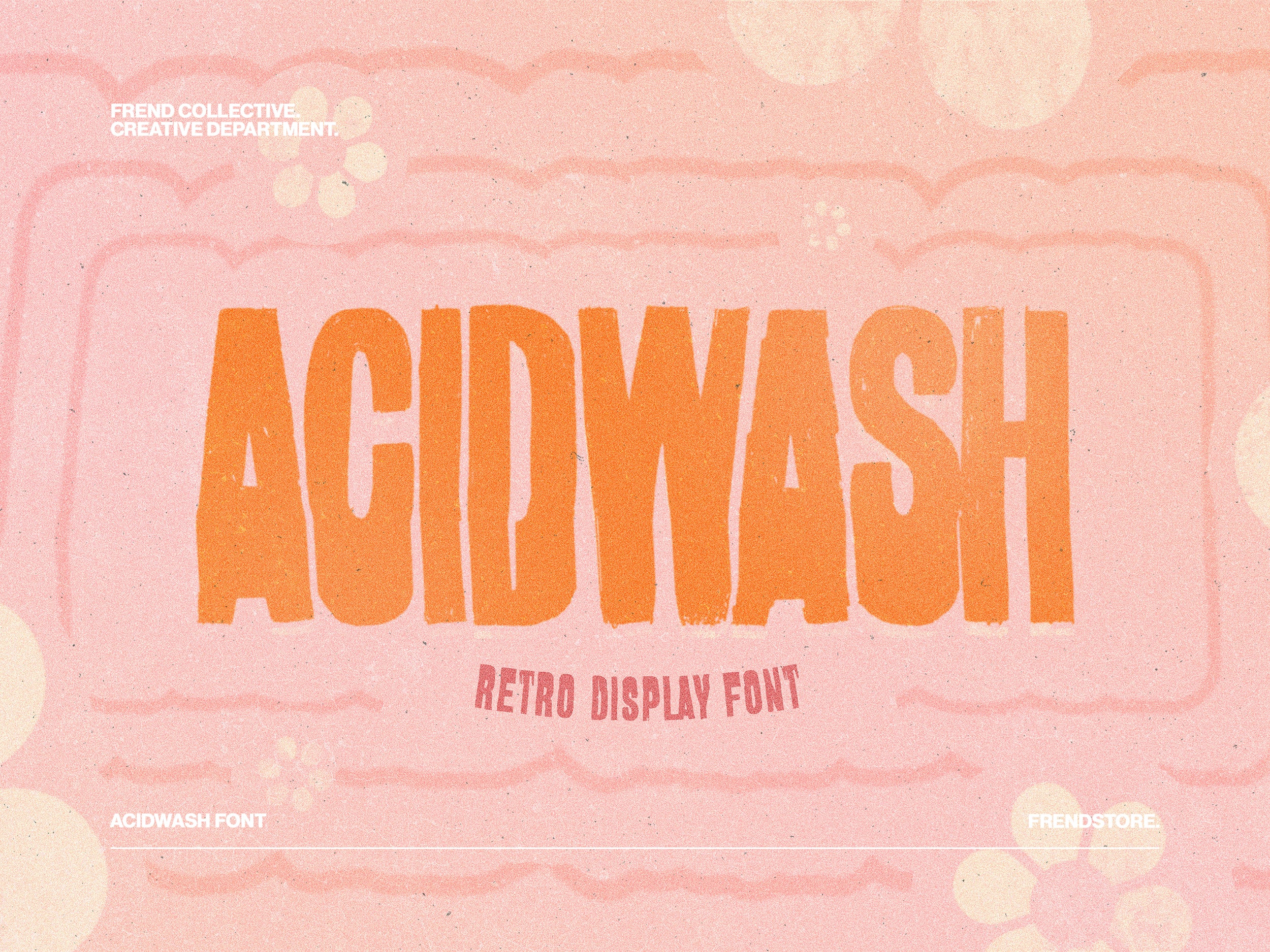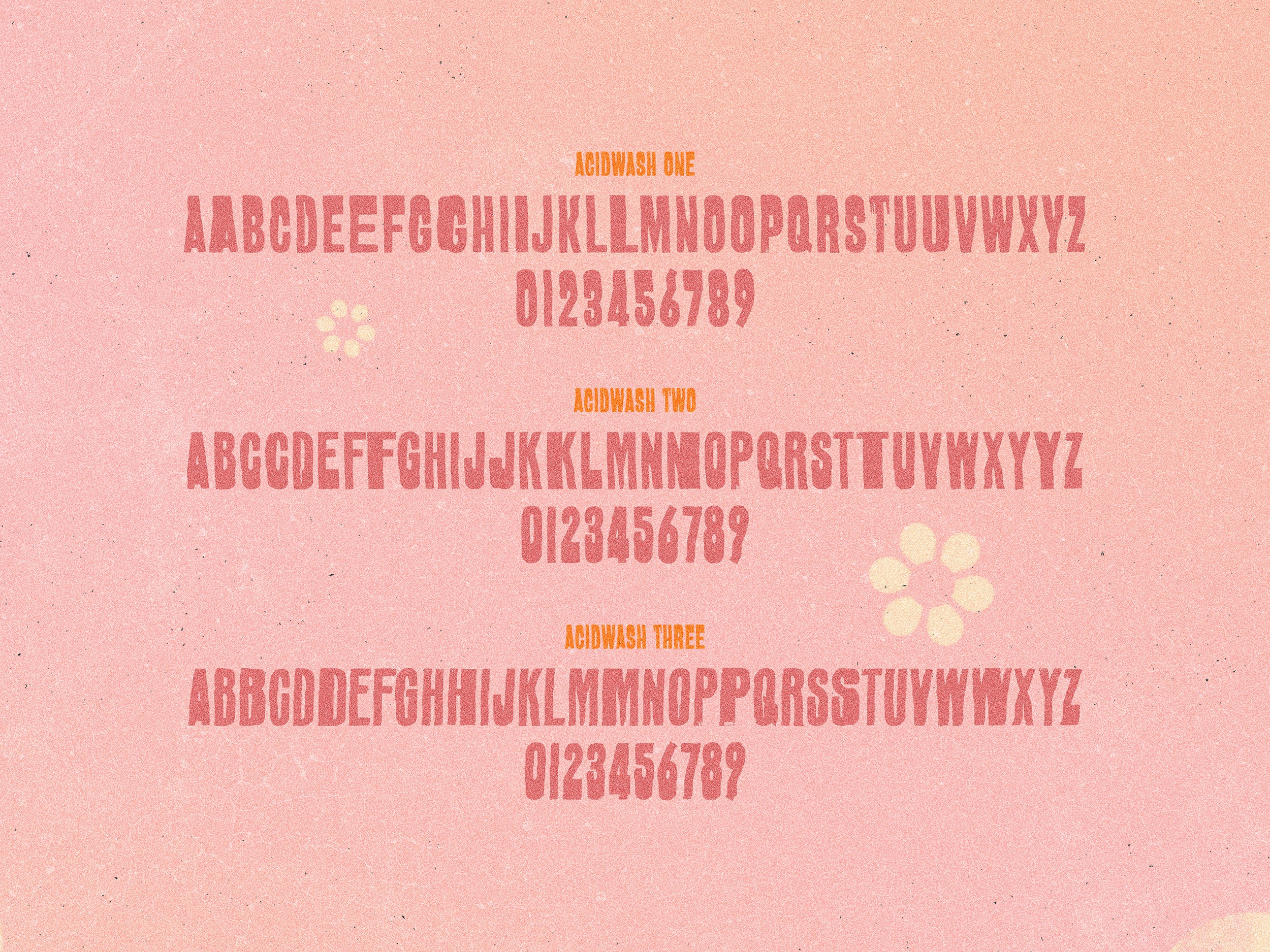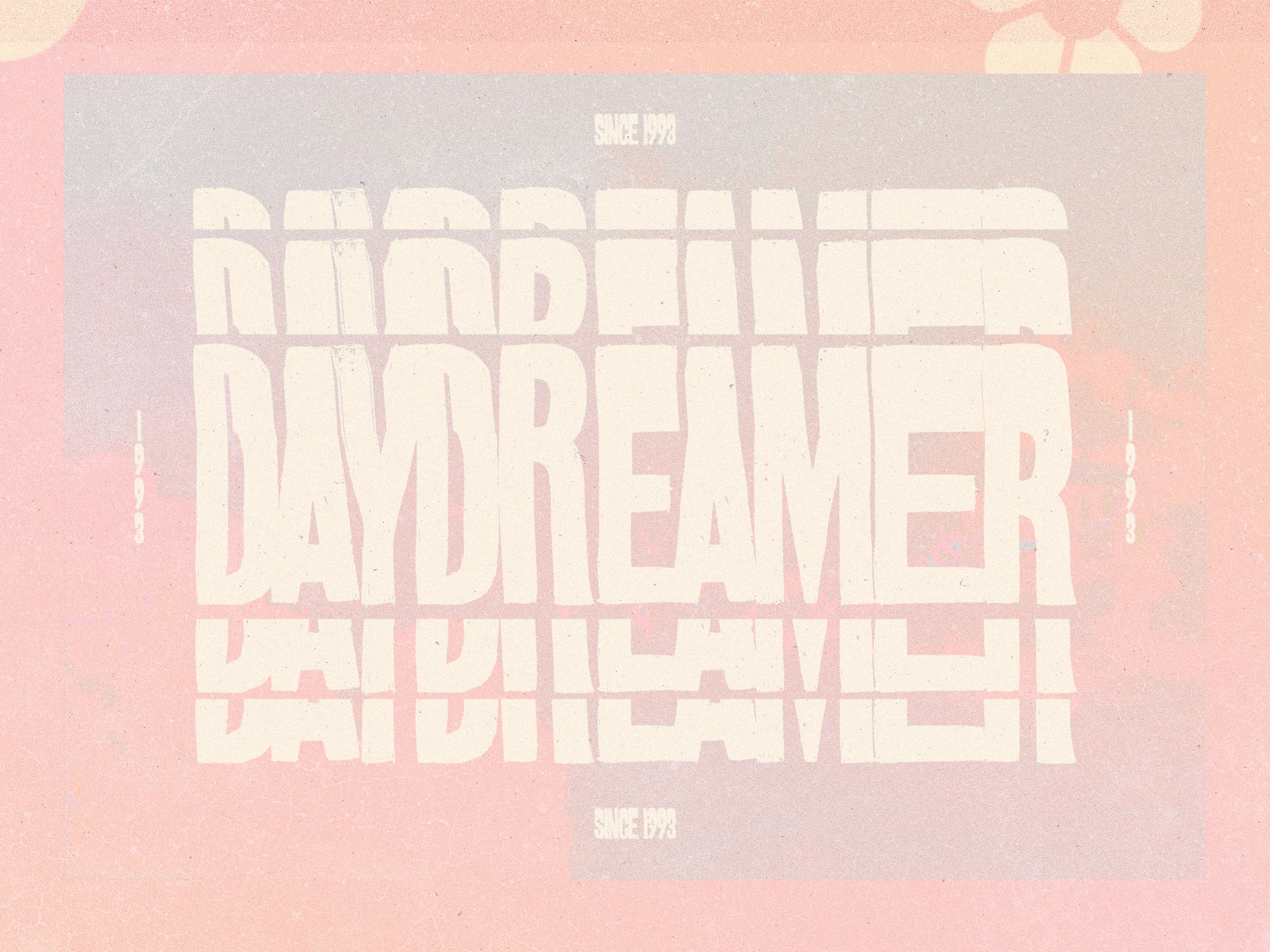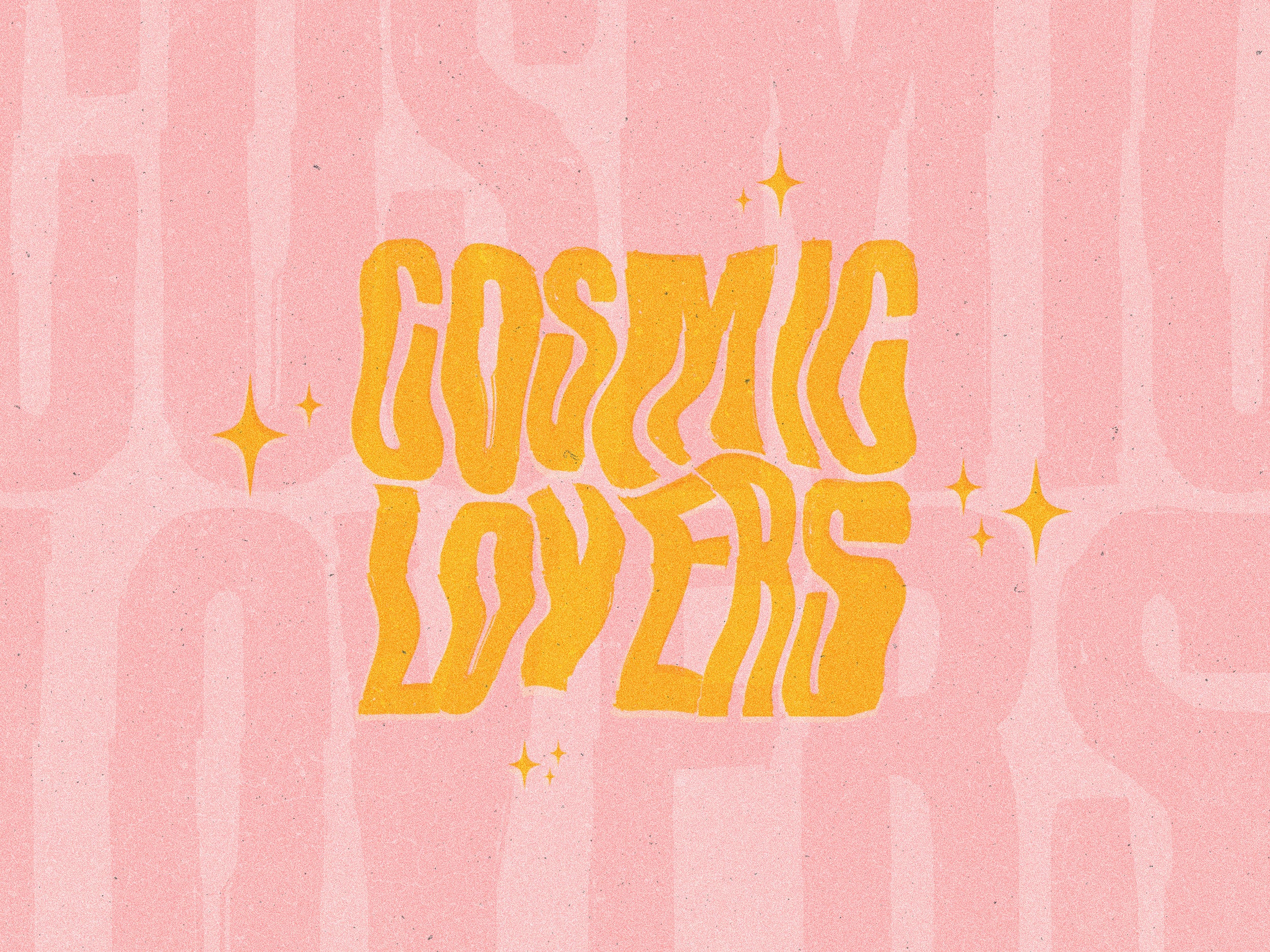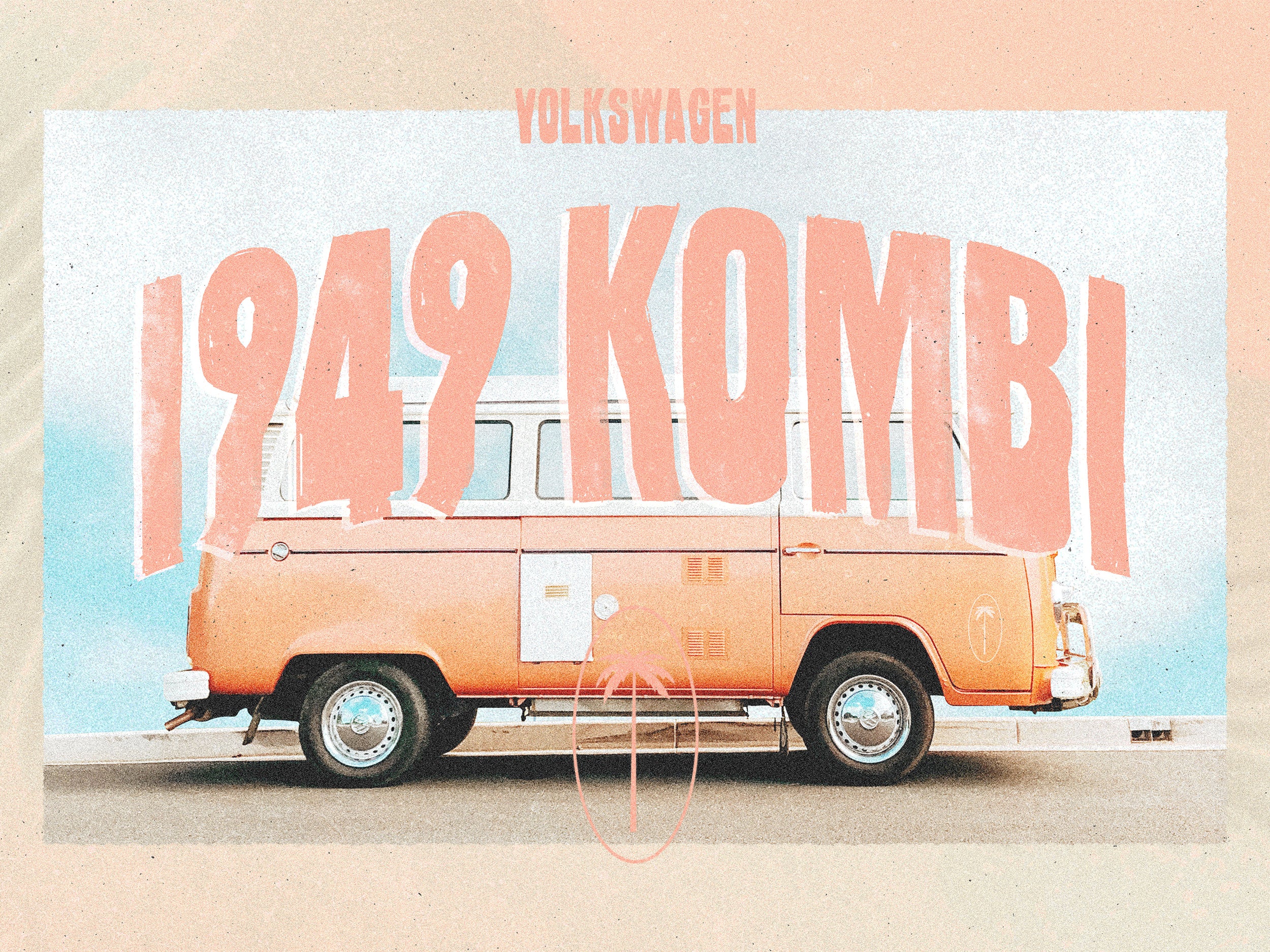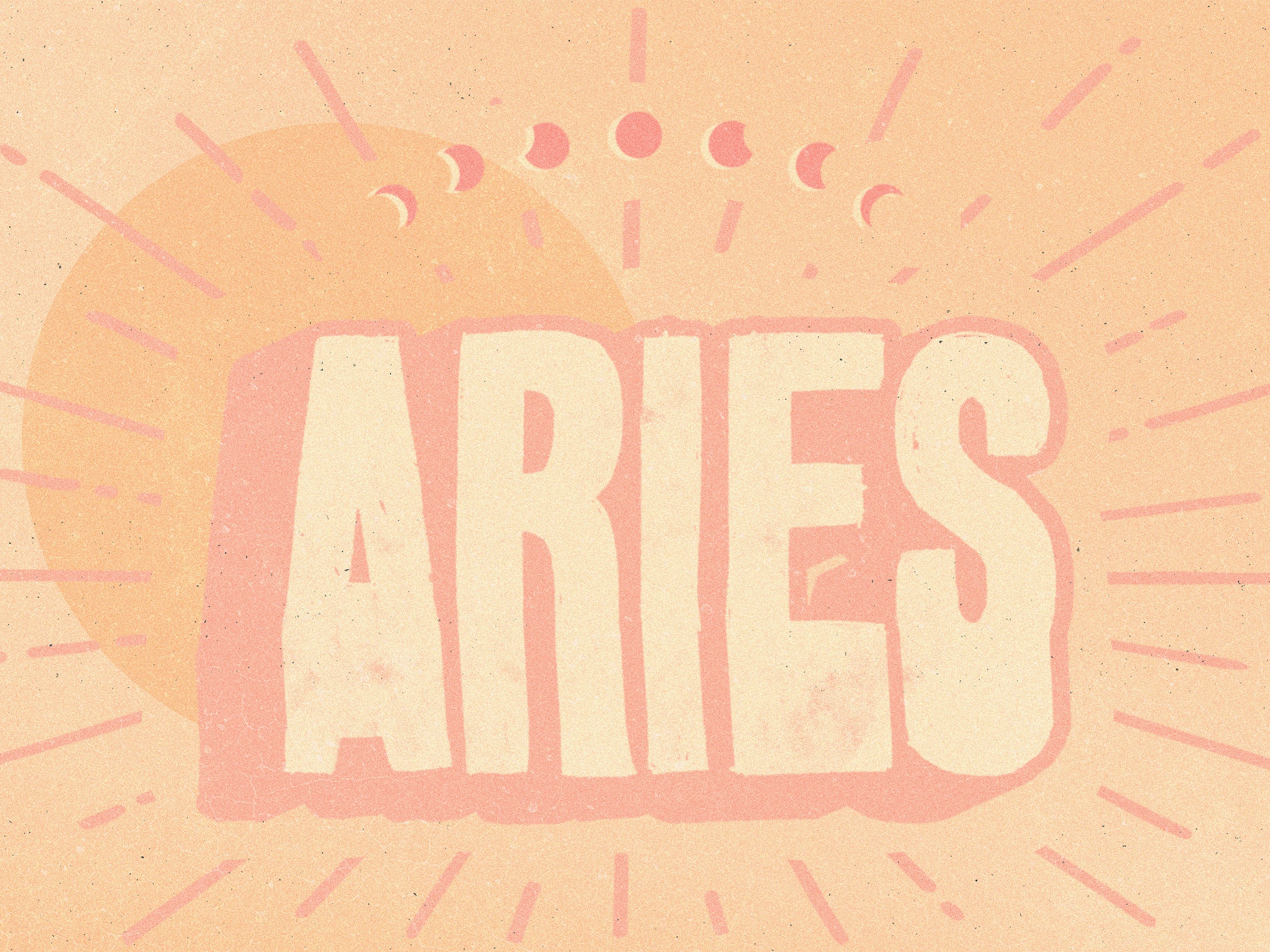
ACIDWASH FONT
Introducing ACIDWASH Font.
ACIDWASH is a completely hand-drawn, bold, retro display font, inspired by 70's grunge. ACIDWASH is an all caps font and comes with 3 font variations + alternative characters + numbers and is perfect for any design project.
Includes: ACIDWASH One / ACIDWASH Two / ACIDWASH Three.
Features: All Caps Fonts + Numerals.